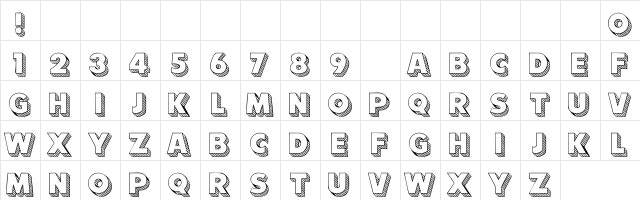
101! Block LetterZ Regular
Design Context for 101! Block LetterZ Typeface
101! Block LetterZ is a composed and adaptable typeface that performs quietly and consistently across a wide range of design contexts.